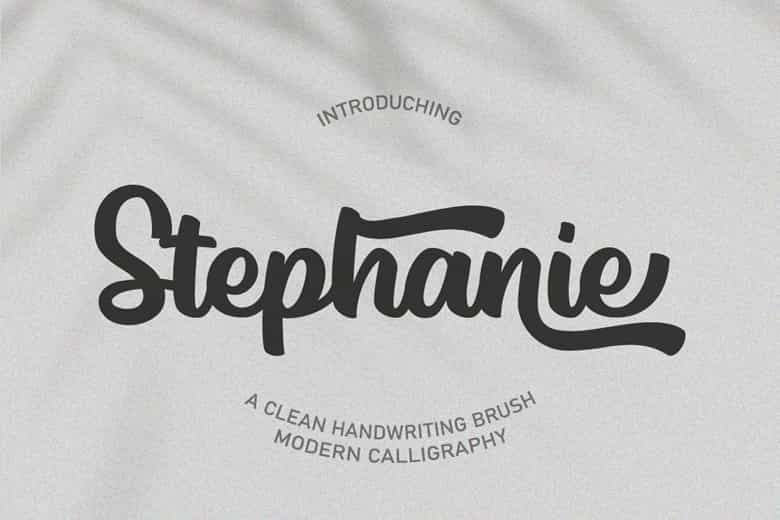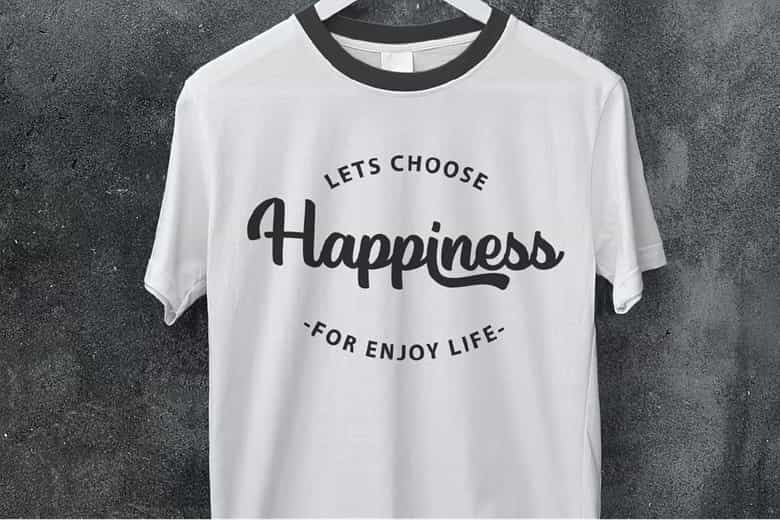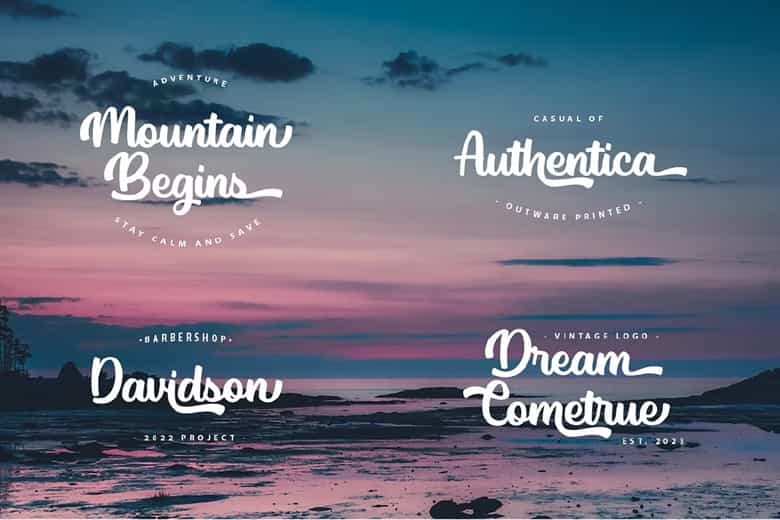
Stephanie is a clean handwritten brush modern calligraphy script font. This font is best for photography, watermarks, social media marketing, advertisements, logos and branding, invitations, product designs, labels, stationery, packaging, events and much more.